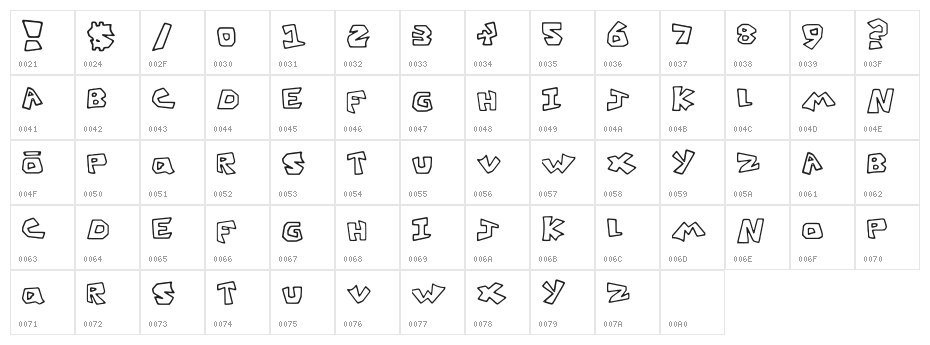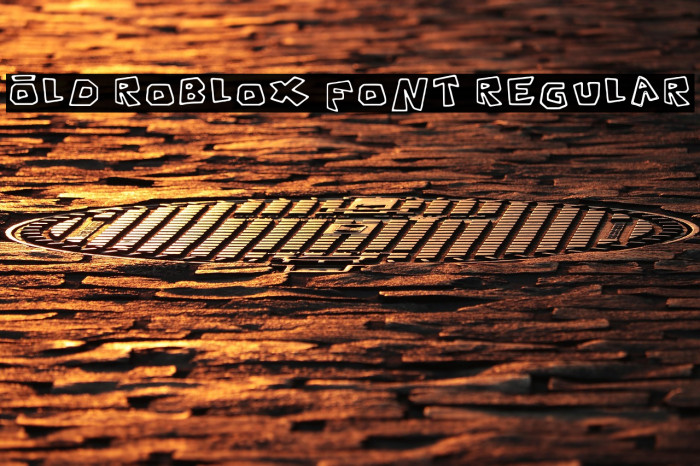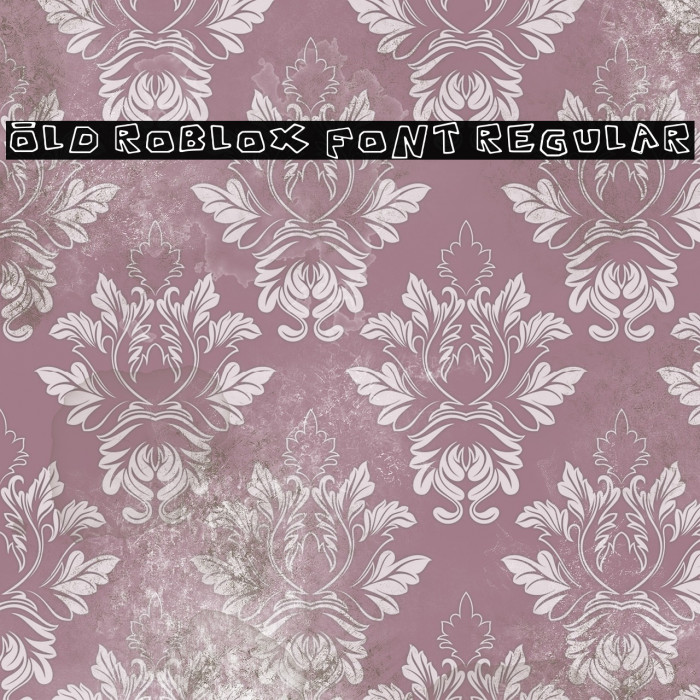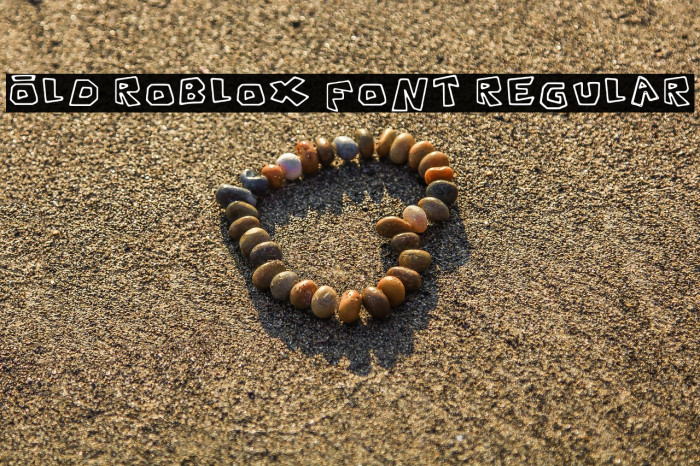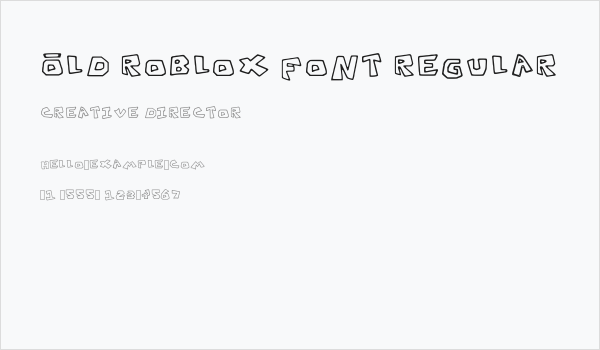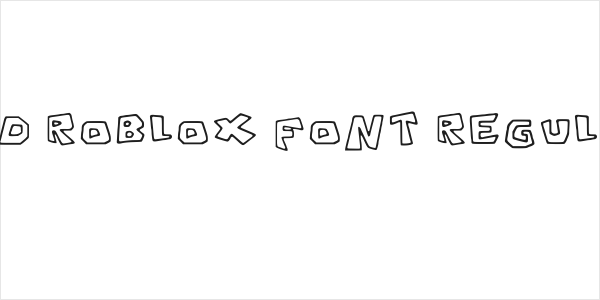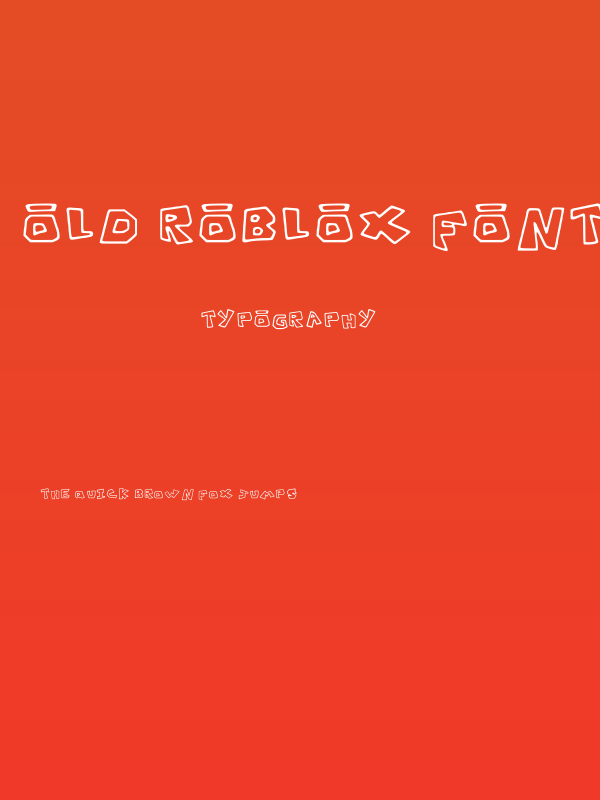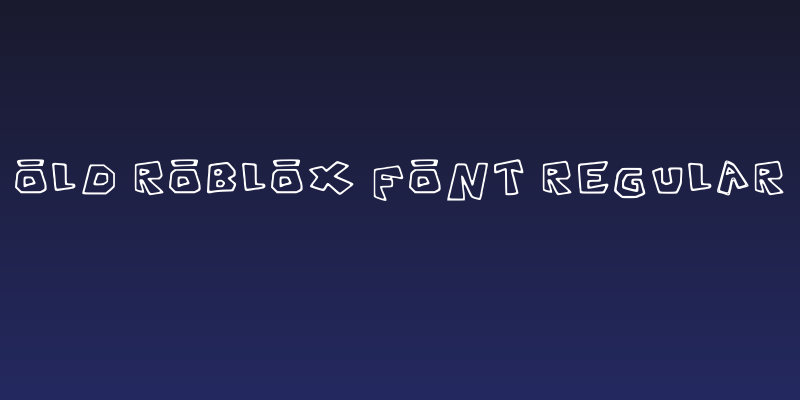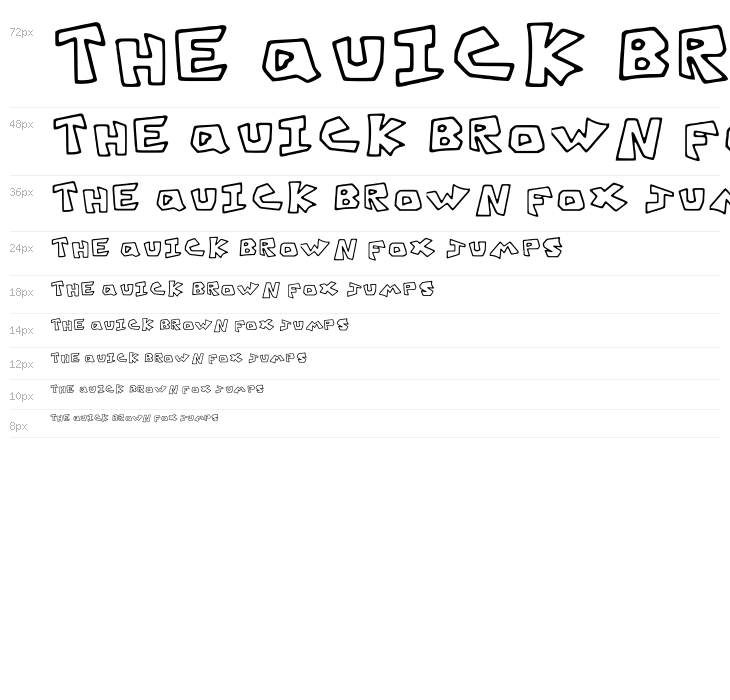
Old Roblox Font Regular Font
Old Roblox Font Regular Description
This font features a playful and bold design with a hand-drawn aesthetic. The characters are irregular and quirky, giving off a fun and informal vibe. Each letter and number has a unique, jagged outline that adds to its distinctive style. The uppercase and lowercase letters maintain a consistent theme, with exaggerated angles and a cartoonish appearance. The numbers follow the same playful design, making them stand out with their bold and uneven shapes. Special characters like the exclamation mark and question mark are also designed with the same whimsical flair, enhancing the overall cohesive look of the font.
| Overall Style | Playful, Cartoonish, Hand-drawn |
| Proposed Projects | Ideal for children's books, comic strips, playful branding, and video game graphics. |